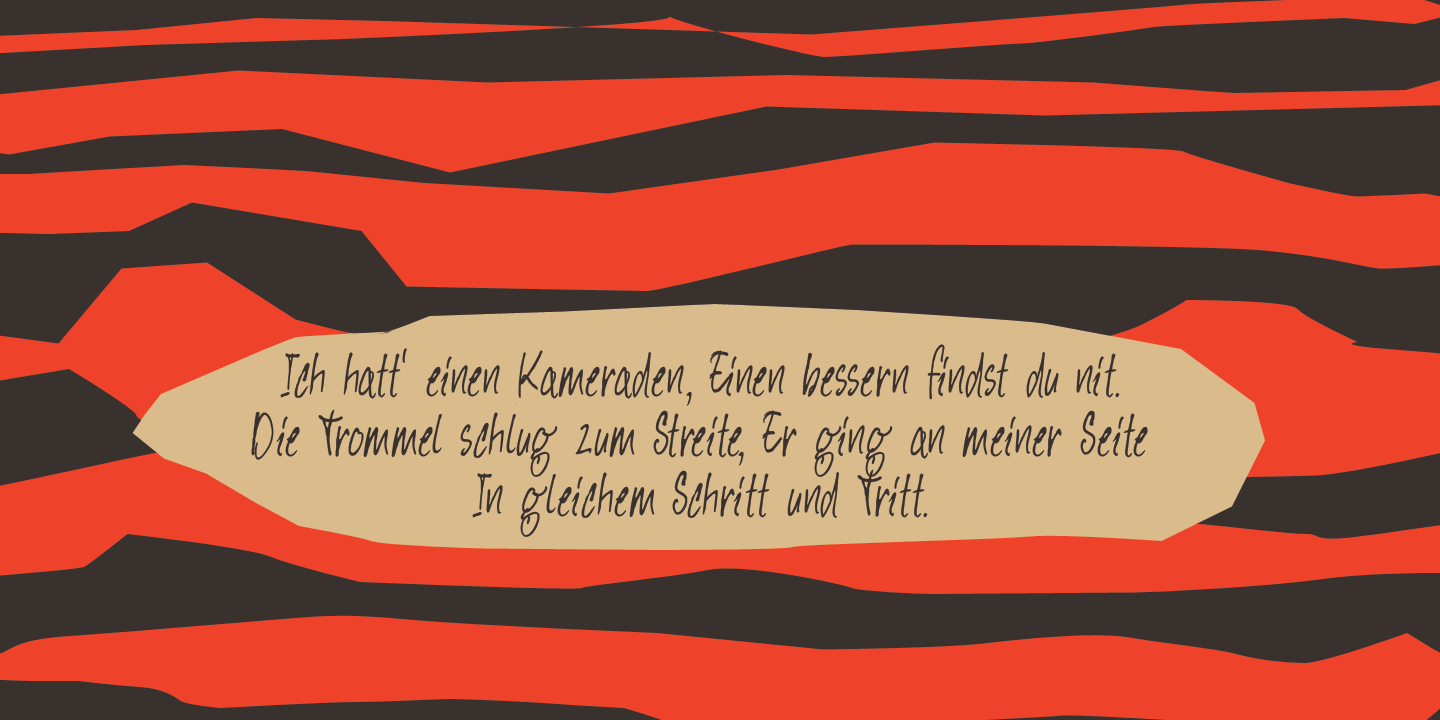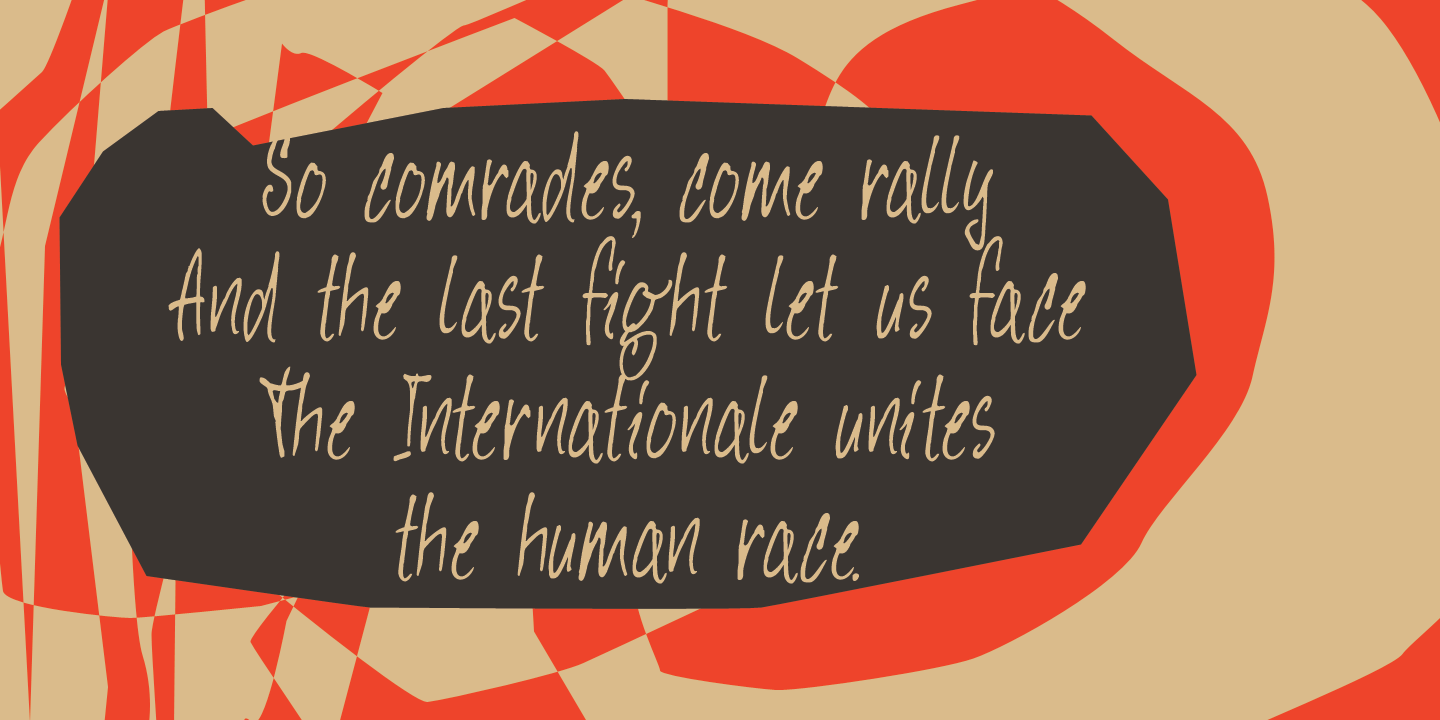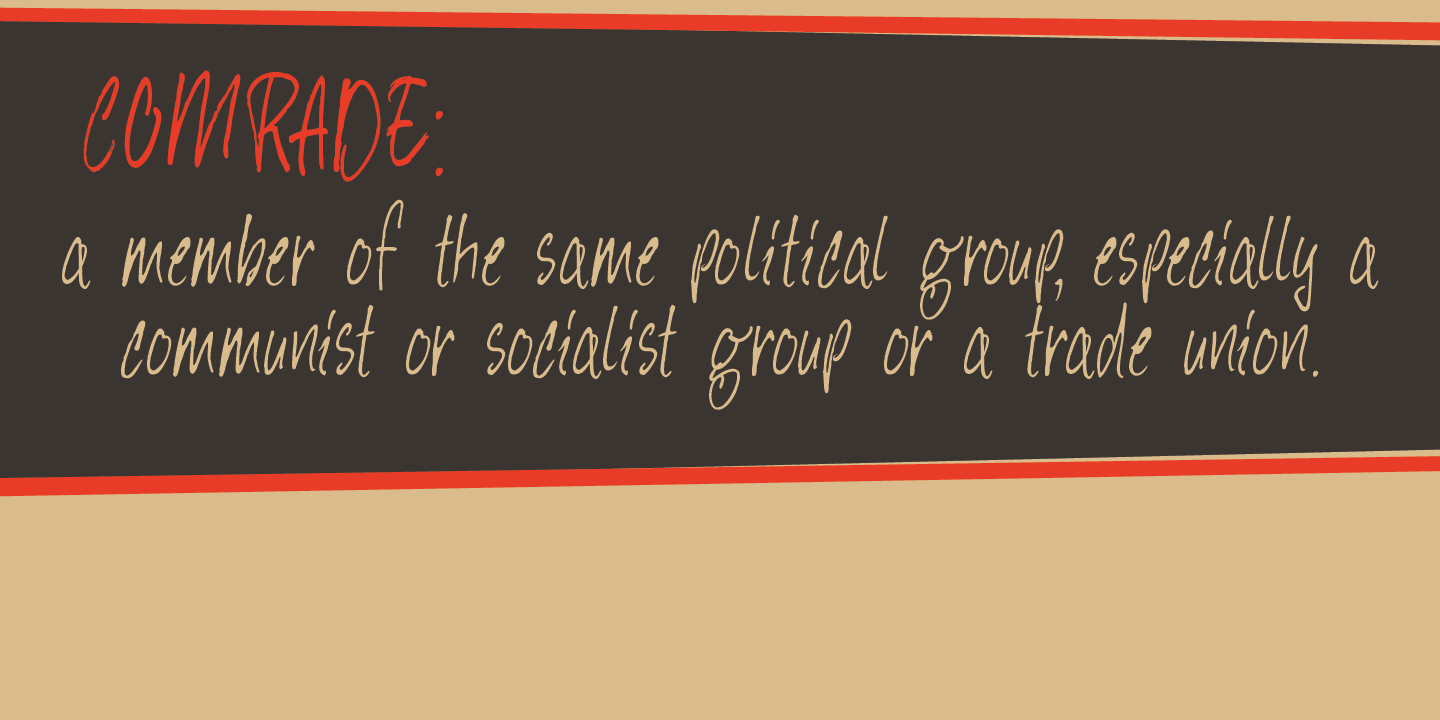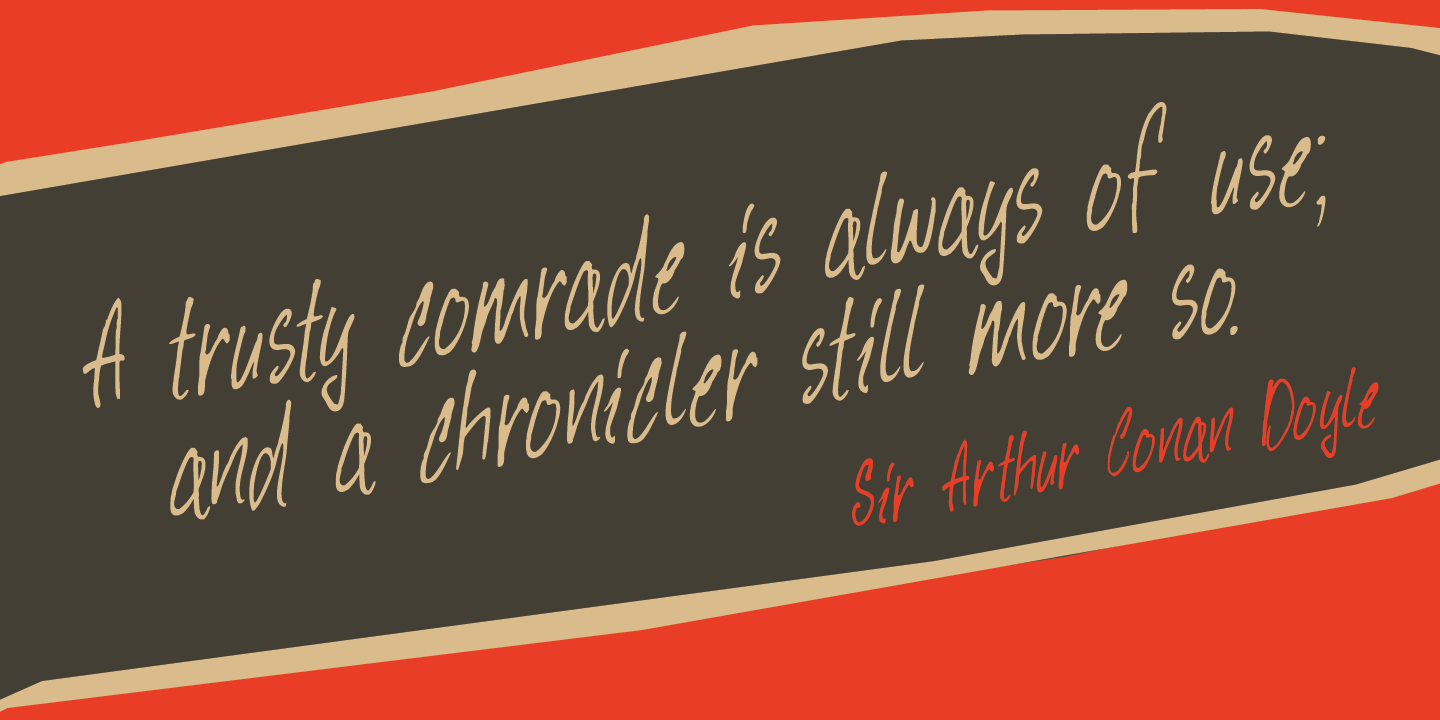
Hey Comrade
Hey Comrade is a very messy script font. It was made with a bamboo satay skewer (which I had soaked in ink). Hey Comrade would look good on book covers, packaging and in magazines. Comes with a 5-year plan of diacritics.